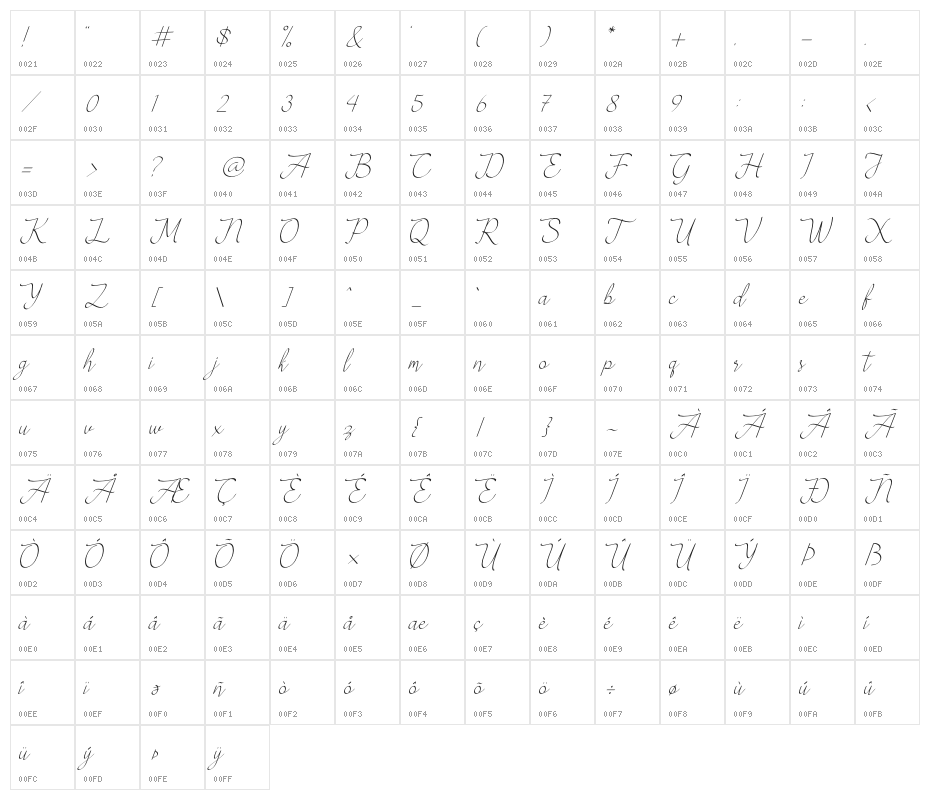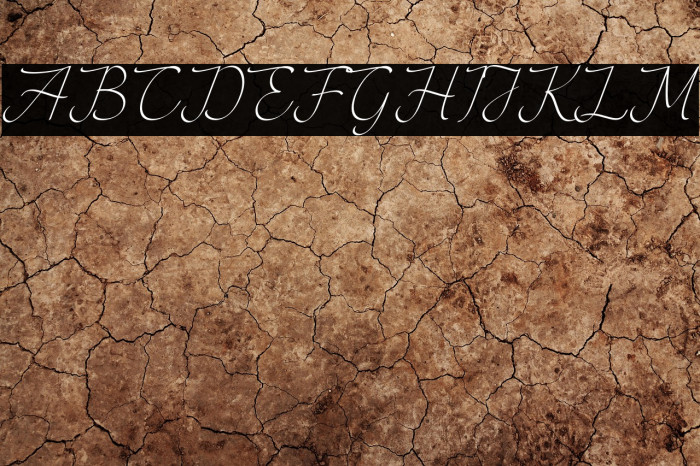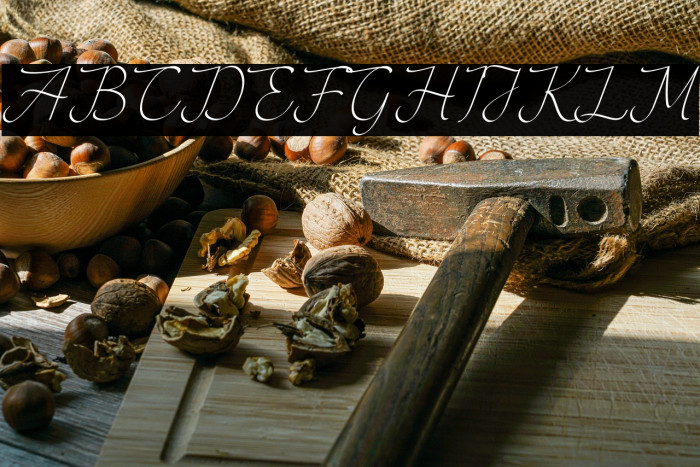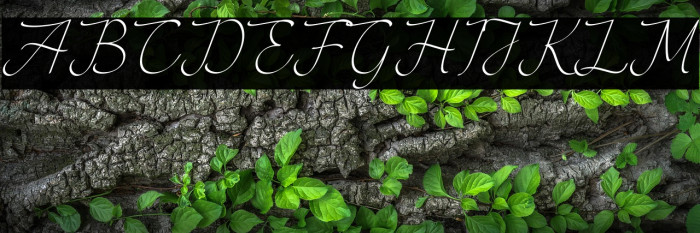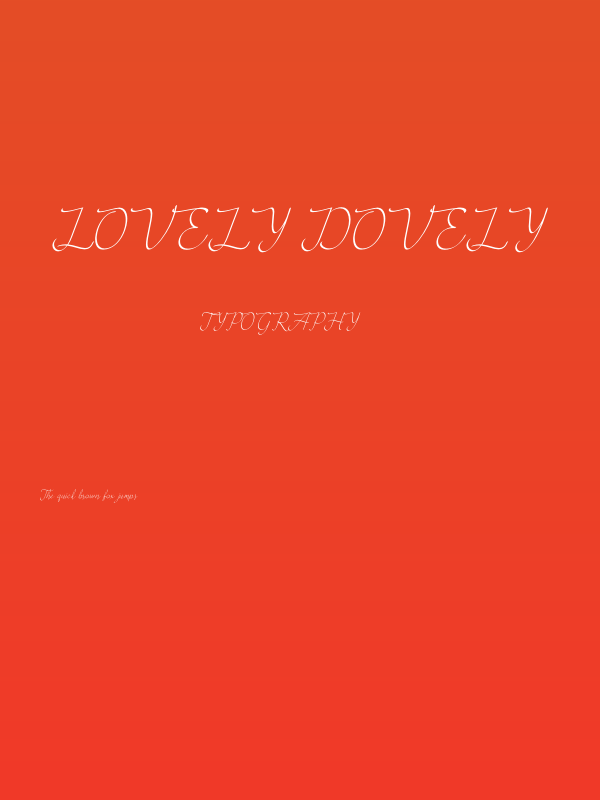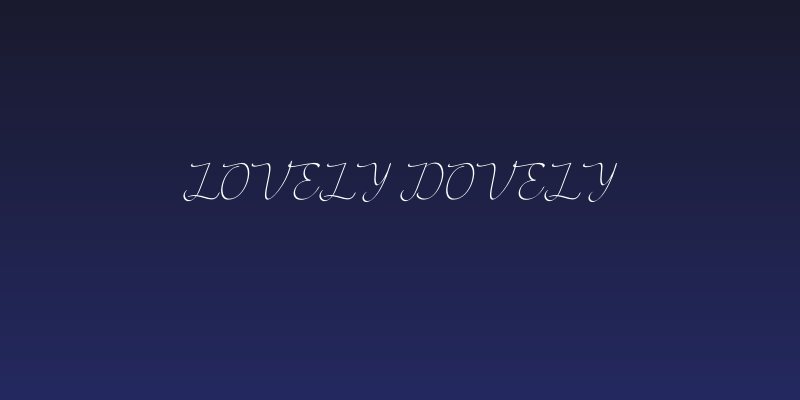
lovely dovely Font
lovely dovely Description
This elegant script font features a flowing, cursive style with delicate, thin strokes that give it a graceful and sophisticated appearance. The uppercase letters are slightly more ornate, with subtle flourishes that enhance their decorative quality. The lowercase letters maintain a consistent slant, contributing to the font's fluidity and charm. Numbers and special characters are designed with the same attention to detail, ensuring a cohesive look across all elements. The font's overall aesthetic is both romantic and refined, making it suitable for projects that require a touch of elegance.
| Overall Style | Romantic, Elegant |
| Proposed Projects | Ideal for wedding invitations, greeting cards, elegant branding, and romantic-themed designs. |